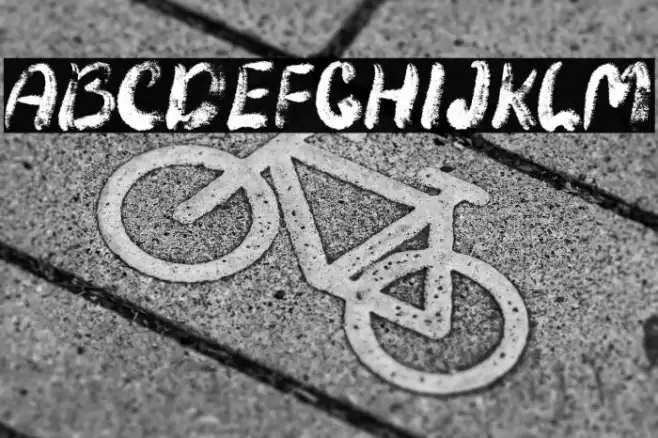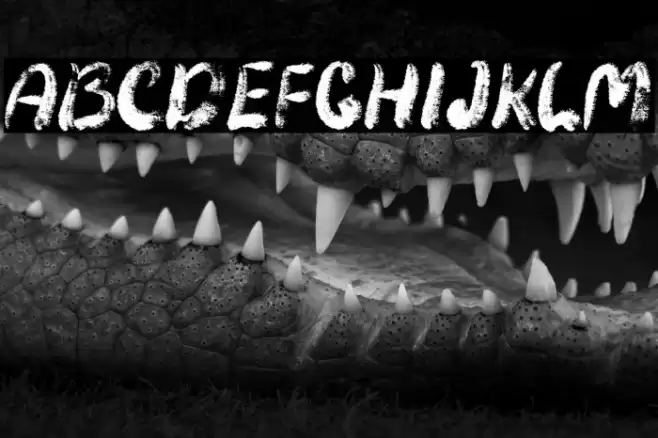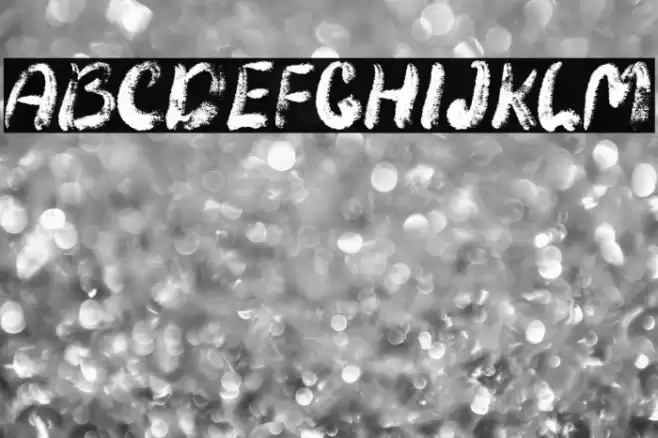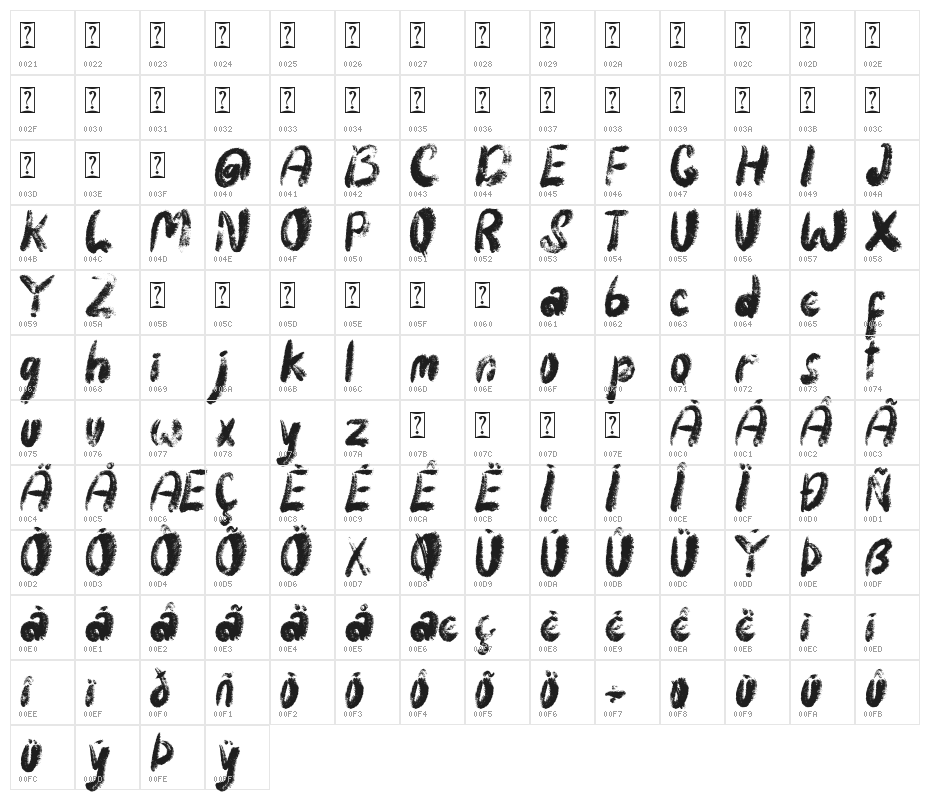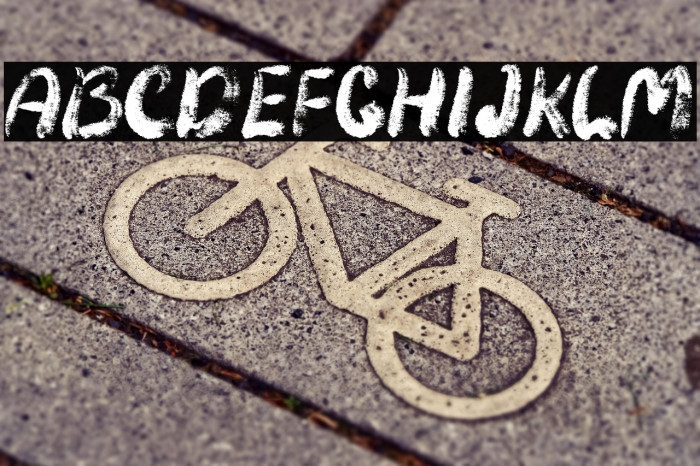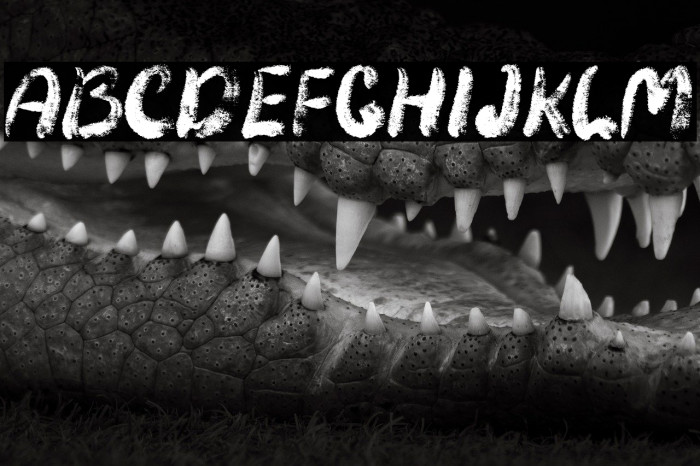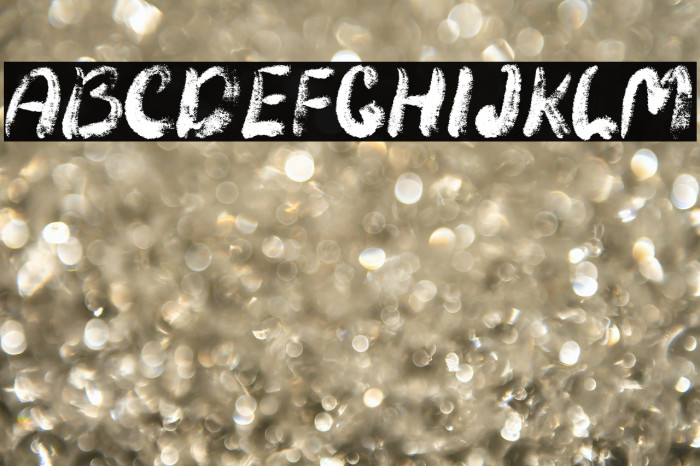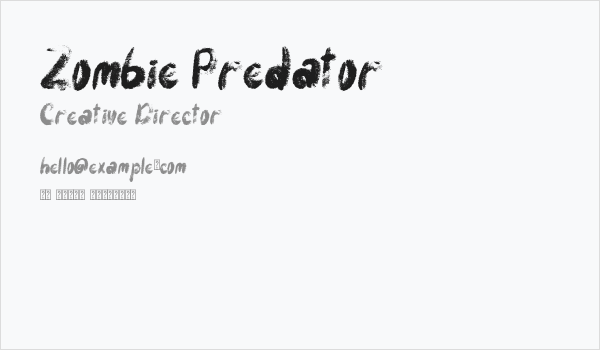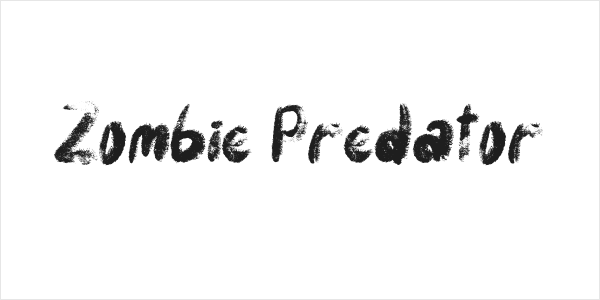
Zombie Predator Font
Zombie Predator Description
This font features a bold, textured brush style that gives it a rugged and dynamic appearance. The letters are crafted with a rough, distressed effect, reminiscent of graffiti or street art. The uppercase and lowercase characters maintain a consistent style, with a slightly uneven baseline that adds to its edgy and spontaneous look. The numbers and special characters follow the same design, ensuring uniformity across all glyphs. This font's unique texture and boldness make it stand out, ideal for projects that require a strong visual impact.
A bold, textured brush font with a rugged, graffiti-like appearance from Uncategorized fonts.
- Font: Zombie Predator
- Proposed Projects: Perfect for poster designs, album covers, urban-themed branding, and any project needing a bold, artistic touch.
- Overall Style: Modern, Urban